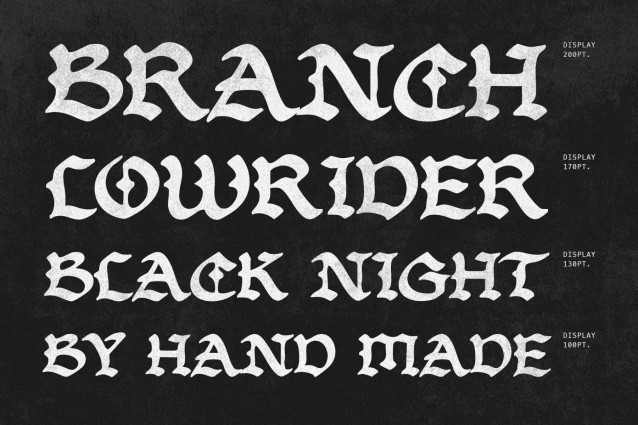
Bandosa is a modern blackletter font with a fresh, tropical twist. Inspired by heritage craftsmanship and coastal subculture, it combines bold vintage letters with a relaxed, handcrafted vibe.
- Unique Style: Soft, organic blackletter edges with a subtle hand-made texture.